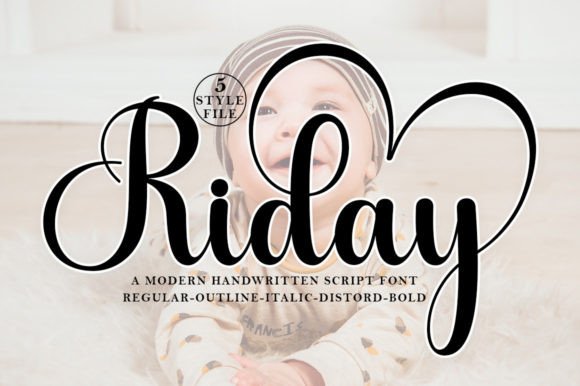
Journey into the realm of elegance and charm with Riday Font, the captivating script typeface that dances across your screens, leaving a trail of visual delight. Crafted with meticulous attention to detail by Diorde Studio, Riday embodies the spirit of romance and sweetness, gracing your designs with a touch of modern calligraphy.
Riday's graceful characters, harmoniously aligned along the baseline, evoke a sense of fluidity and movement, reminiscent of a gentle breeze sweeping through fields of flowers. Its intricate ligatures and swashes, accessible via PUA encoding, add an extra layer of sophistication and charm, transforming your words into exquisite works of art.
As the perfect companion for Easter celebrations, Riday lends a whimsical and festive touch to your projects. Create enchanting invitations that capture the magic of the season, or add a sprinkle of joy to your social media posts. Its versatility extends beyond Easter, seamlessly enhancing a wide range of design endeavors, from wedding stationery to branding materials.
Indulge in the beauty of Riday Font and elevate your designs to new heights. Let its romantic allure captivate your audience, leaving a lasting impression that lingers in their hearts. Embrace the boundless creativity that awaits you with Riday, the font that transforms your words into unforgettable expressions of beauty.